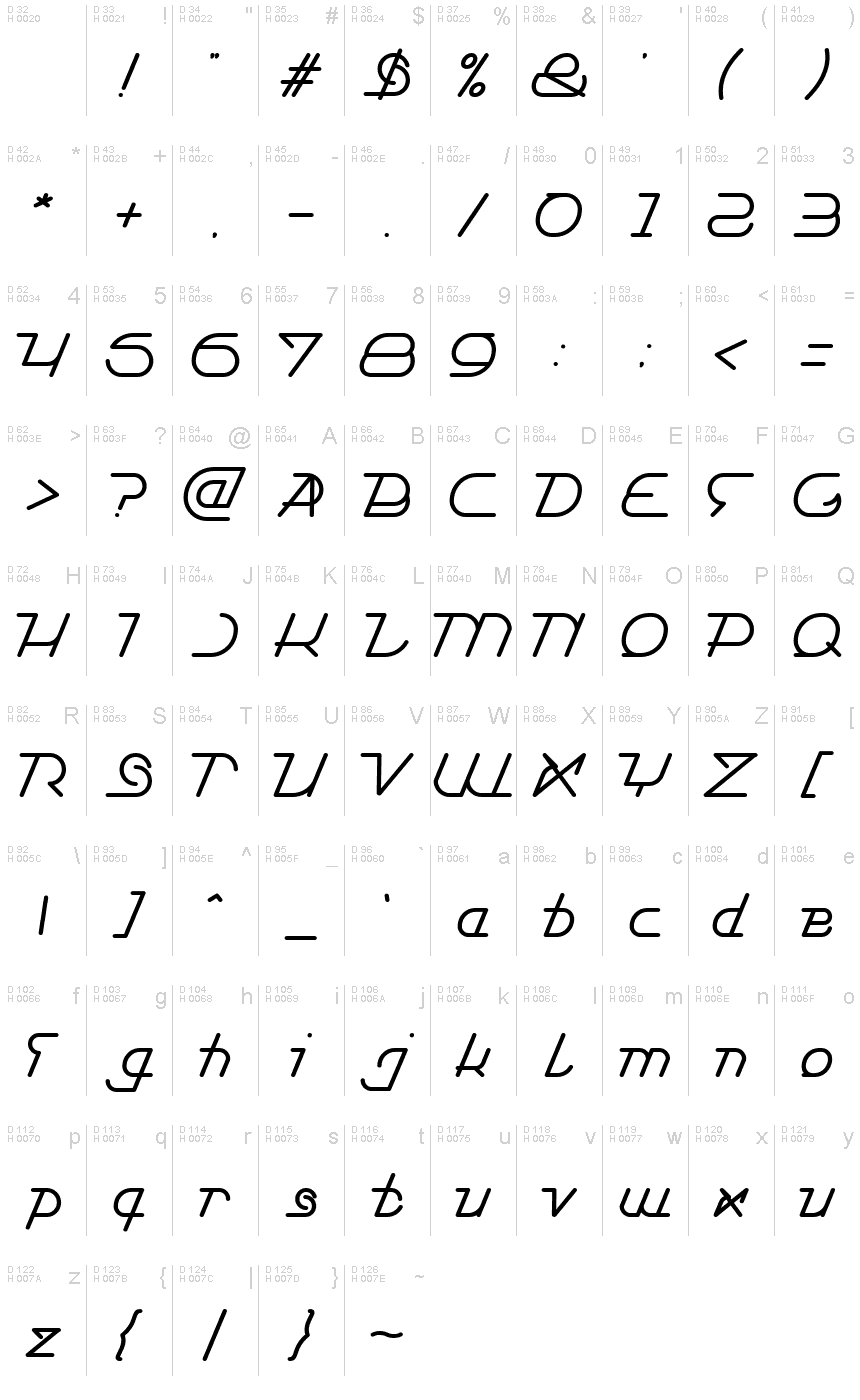
TRUE SELF RELIANT Bold
The TRUE SELF RELIANT Bold font, designed by Weknow, is a captivating display typeface that exudes a futuristic and technological vibe. With its semi-light weight and semi-expanded width, this font is perfect for a wide range of projects. From sci-fi movie titles to cutting-edge tech websites, TRUE SELF RELIANT Bold adds an air of modern sophistication. Its boldness commands attention while its unique techno style sets it apart from other fonts. Embrace the power of TRUE SELF RELIANT Bold and elevate your designs to new heights in any project that requires a touch of contemporary flair.